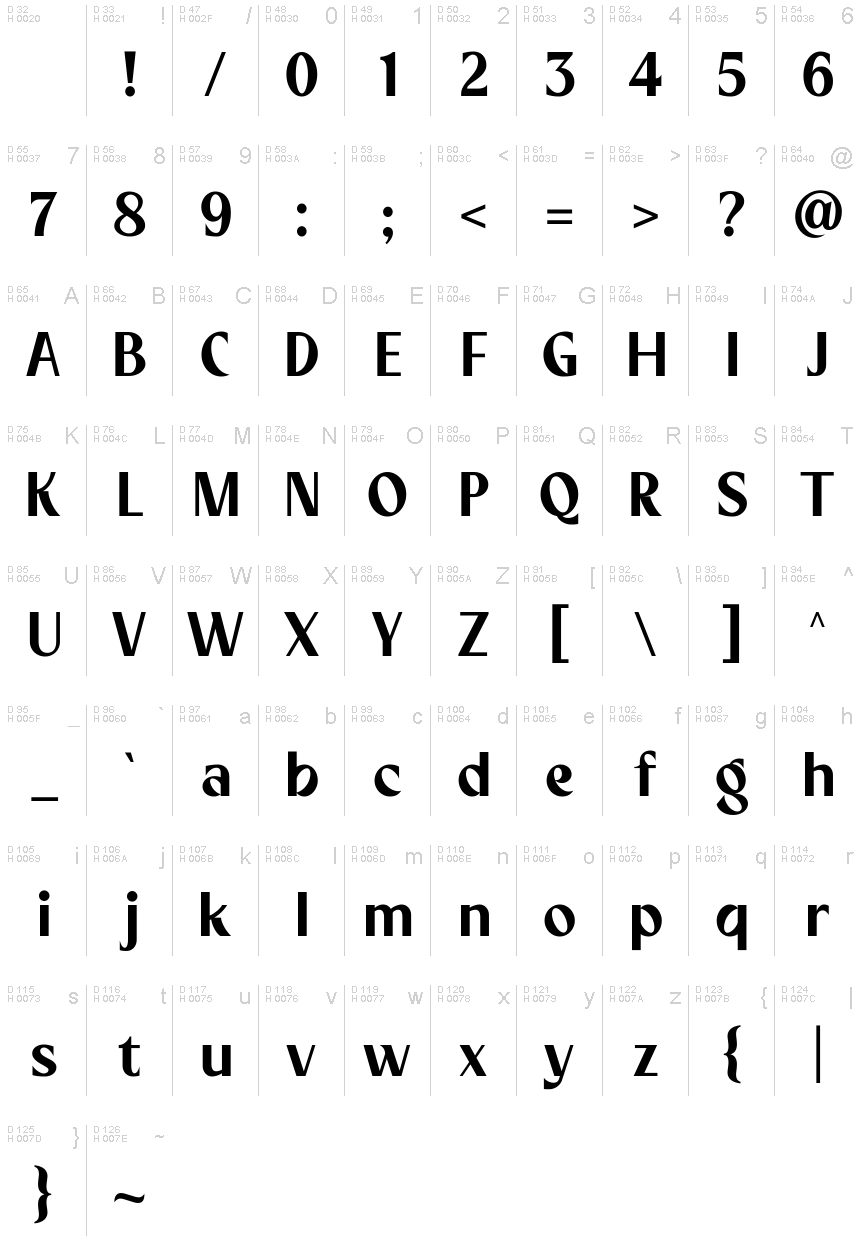
Kinfolk
Kinfolk font by Unitype is a display retro with boldness and elegance. A serif with crisp clean lines & balanced proportions gives the font a modern look. Topped w/ slightly elongated serifs, makes Kinfolk a versatile project mate.
Works well in logotypes and sports brands where its sharpenss can be felt most, posters that render looks at first sight and packaging projects that seek high attention for their products!